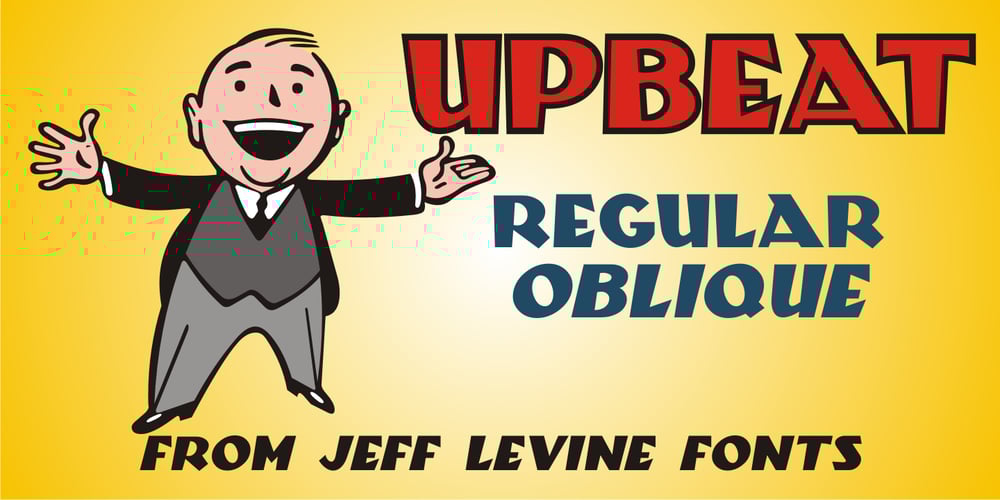
Upbeat Font Family was designed by Jeff Levine and published by Jeff Levine. Upbeat contains 2 styles and family package options. The free-form Art Nouveau hand lettering on the cover of the 1918 sheet music for “Smilin’ Through” (from the MGM motion picture of the same name starring Norma Shearer) is the model for Upbeat JNL; available in both regular and oblique versions.